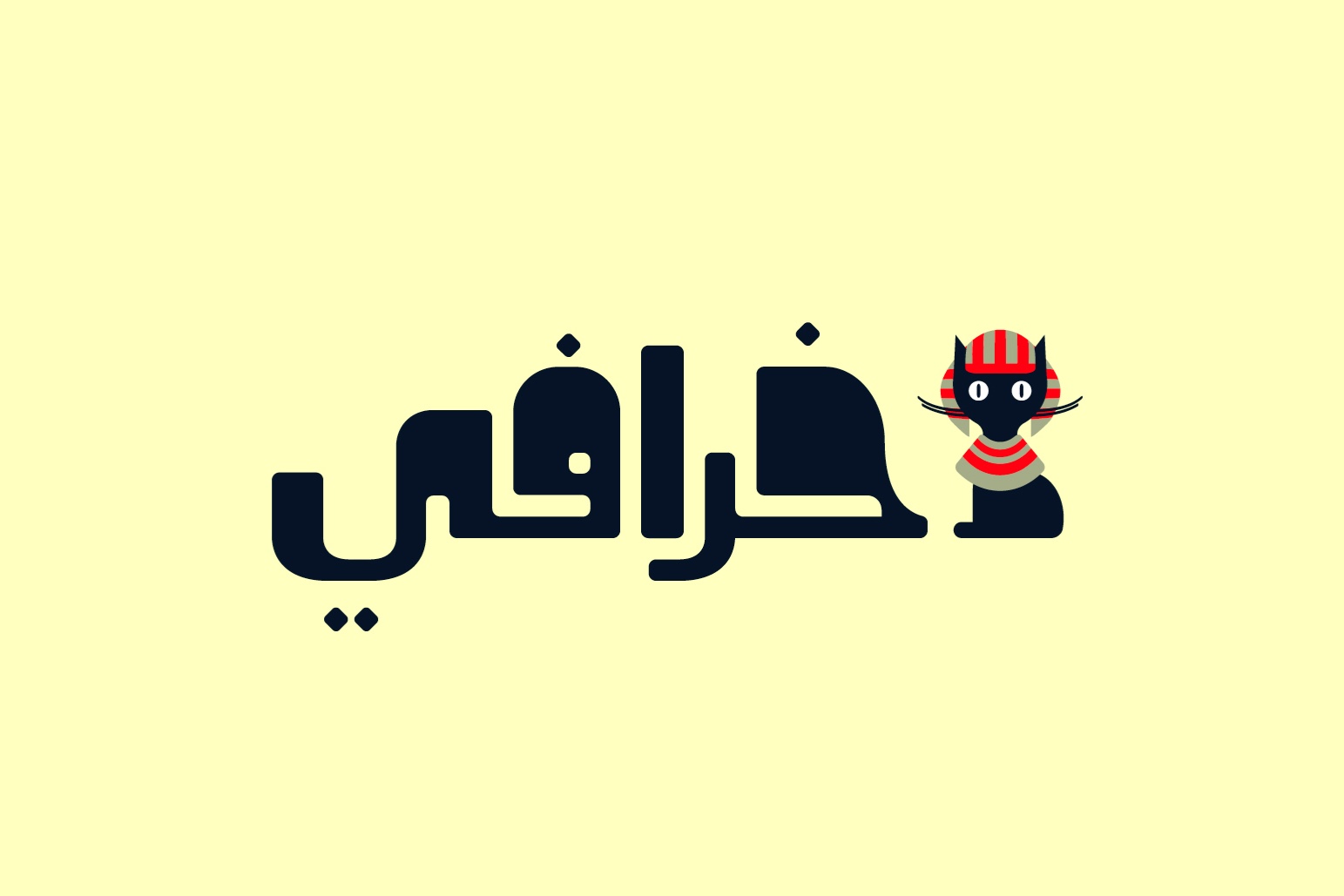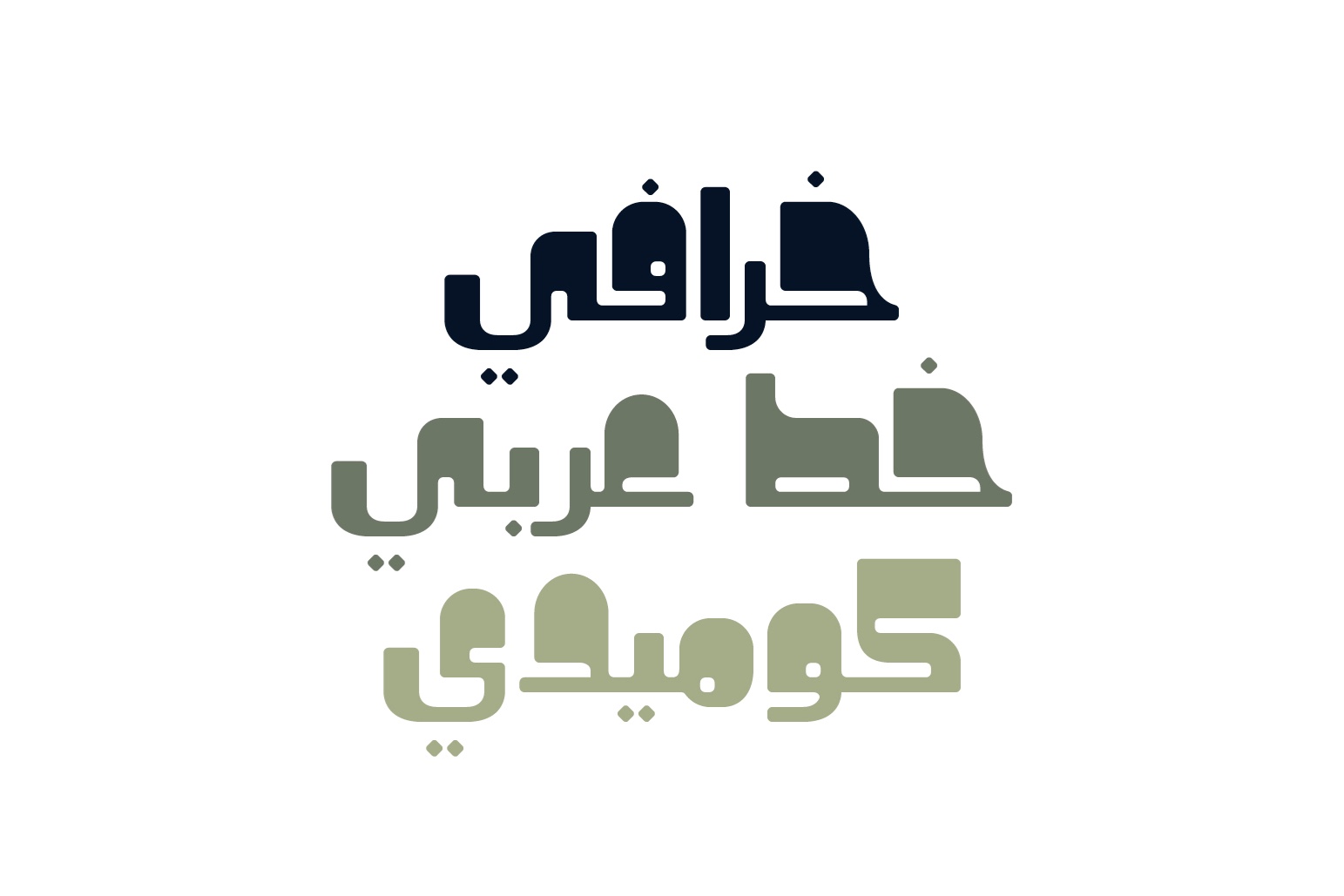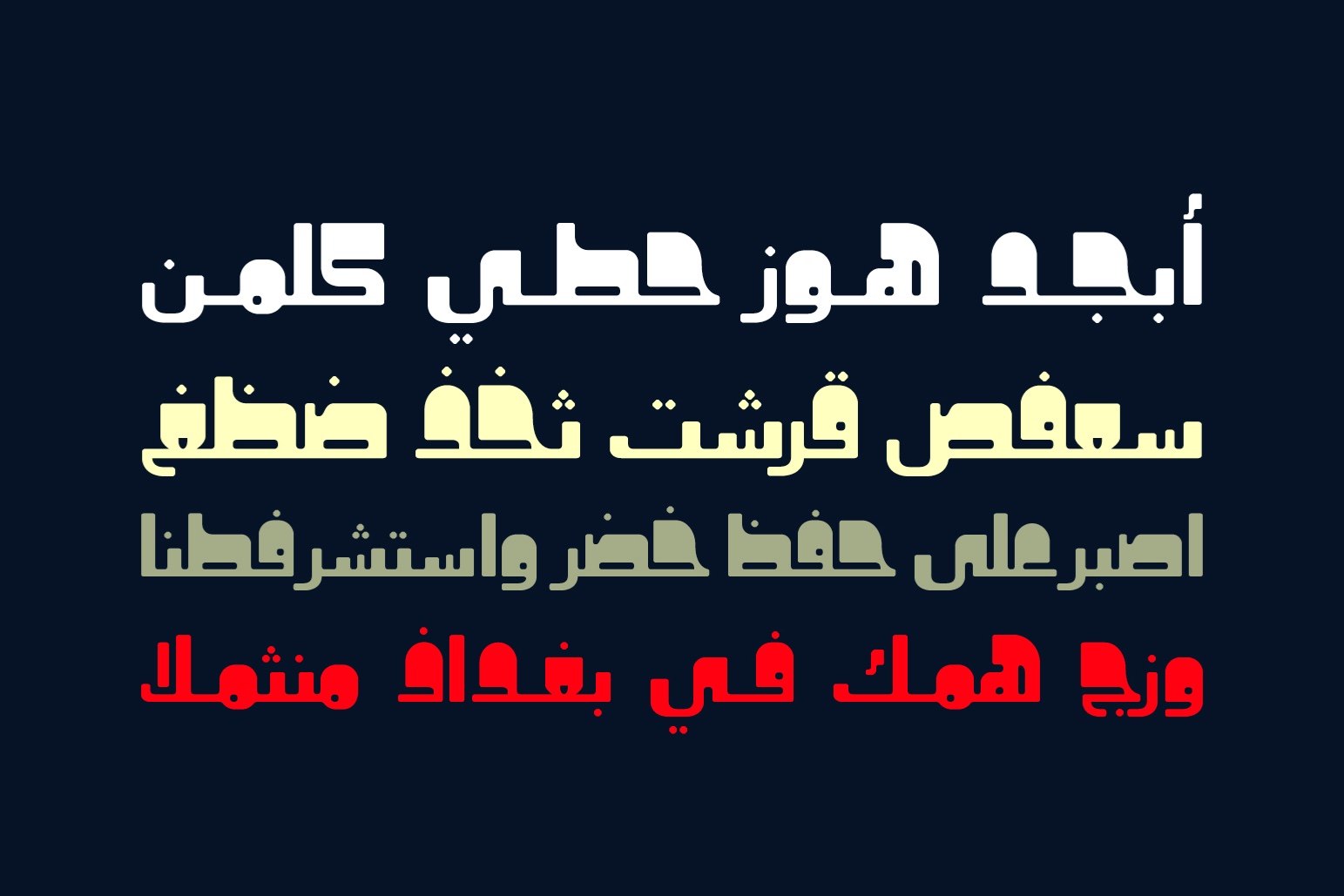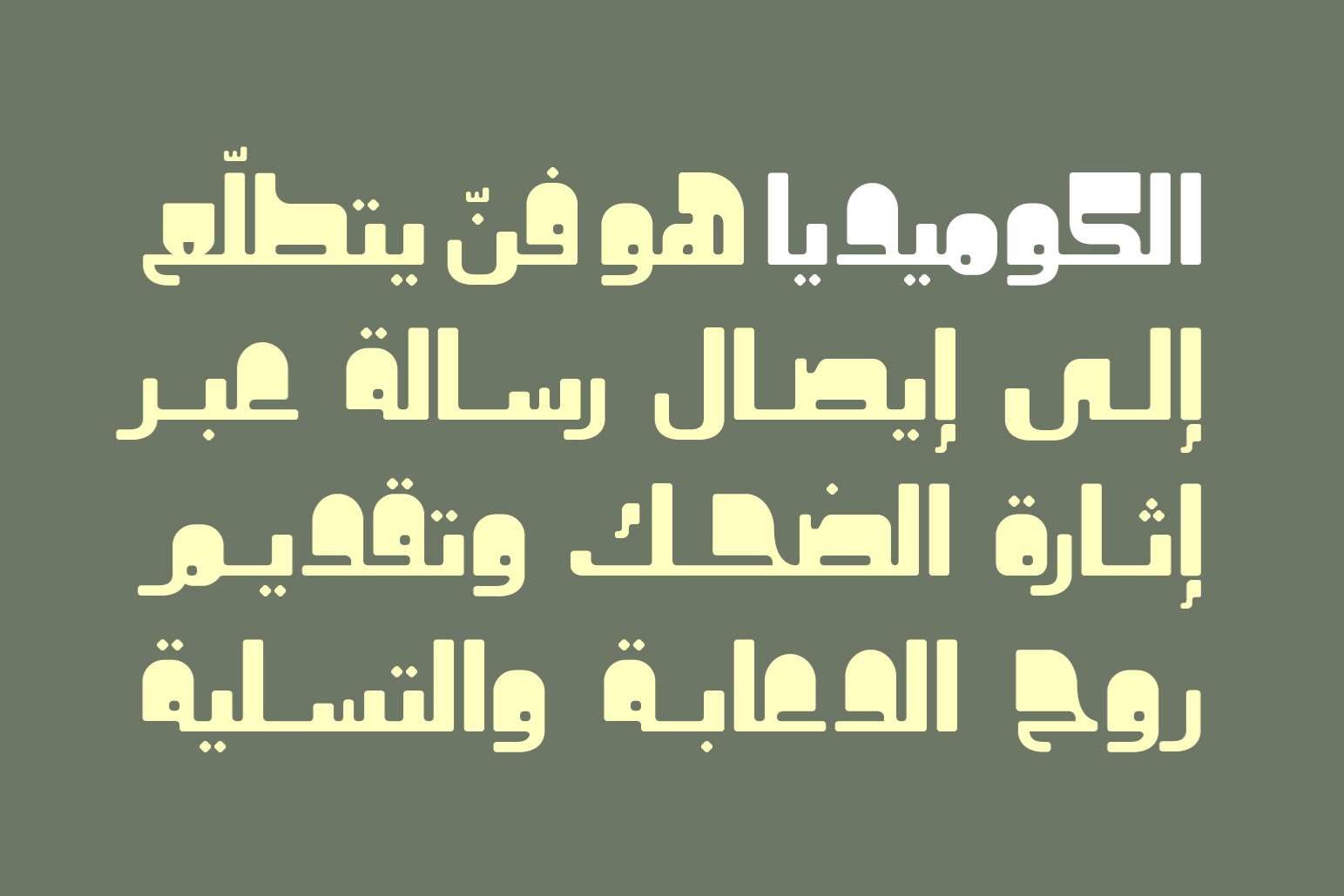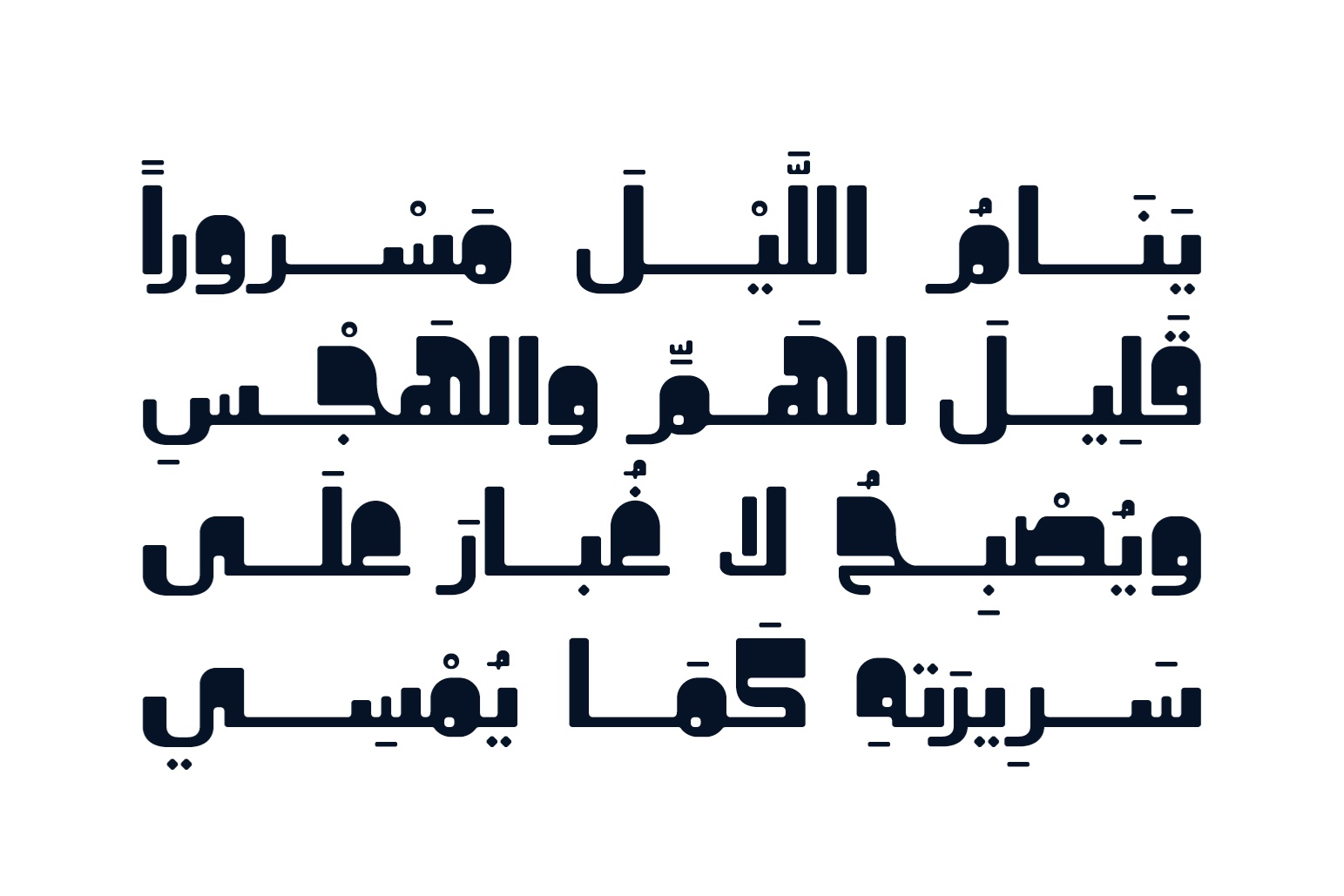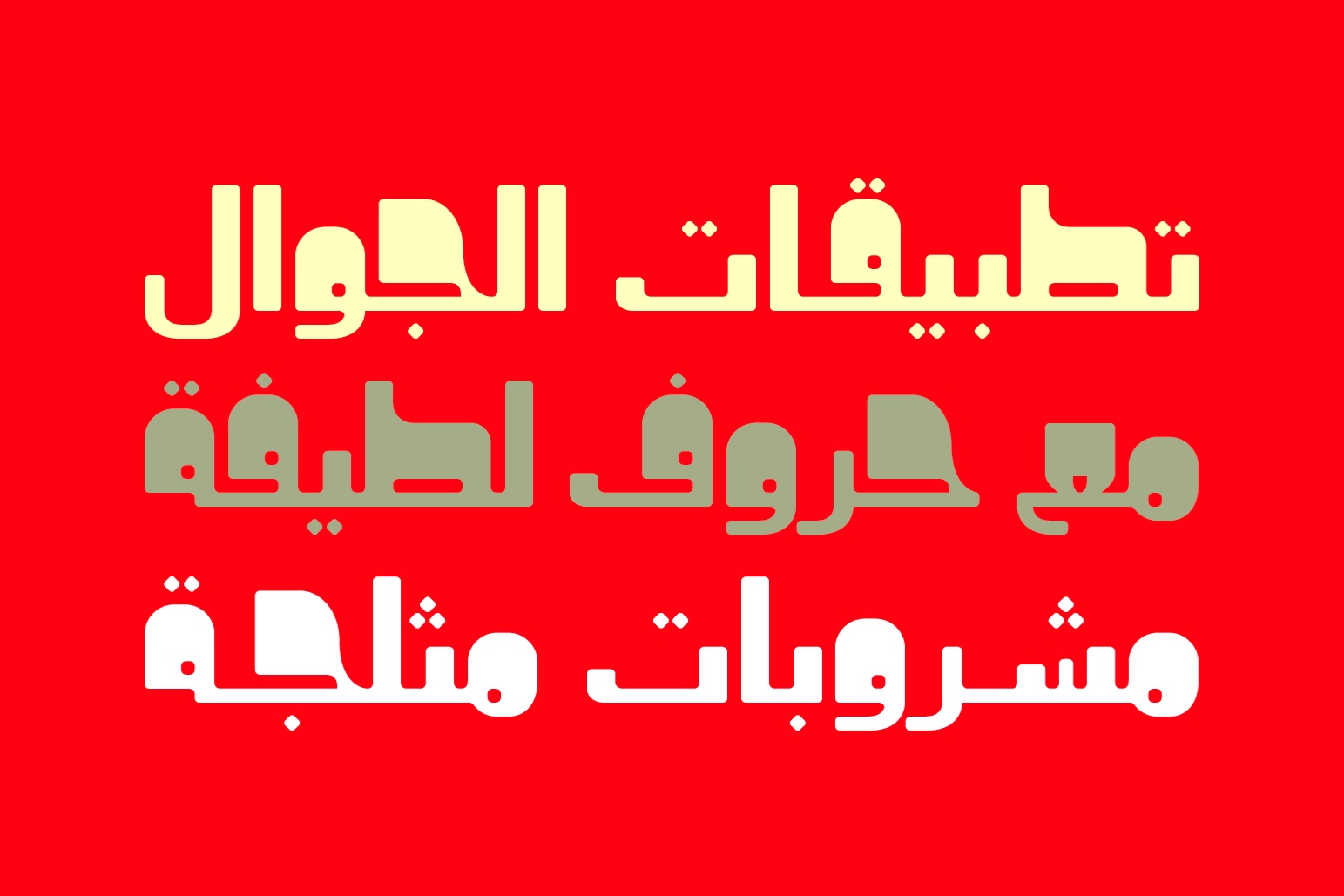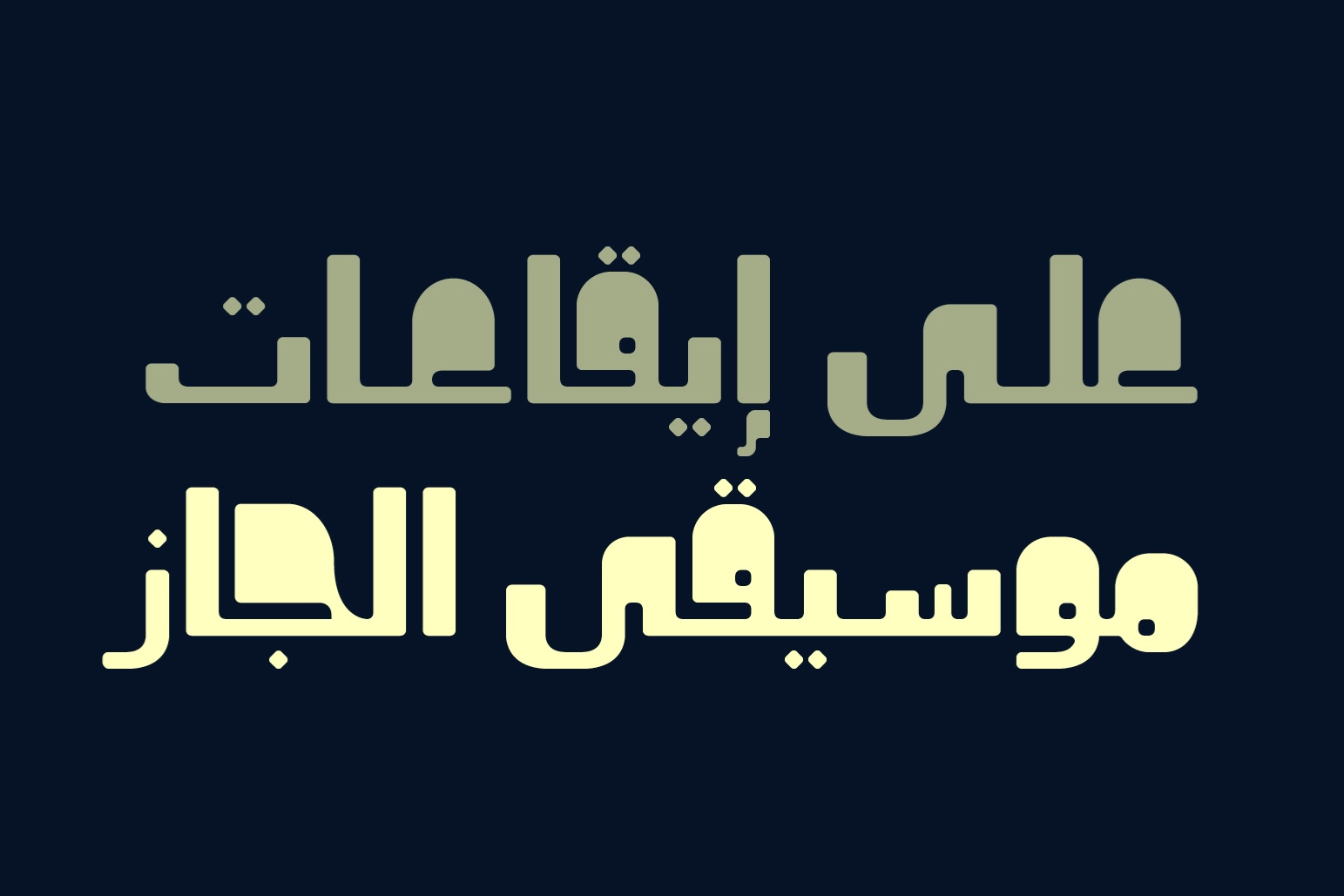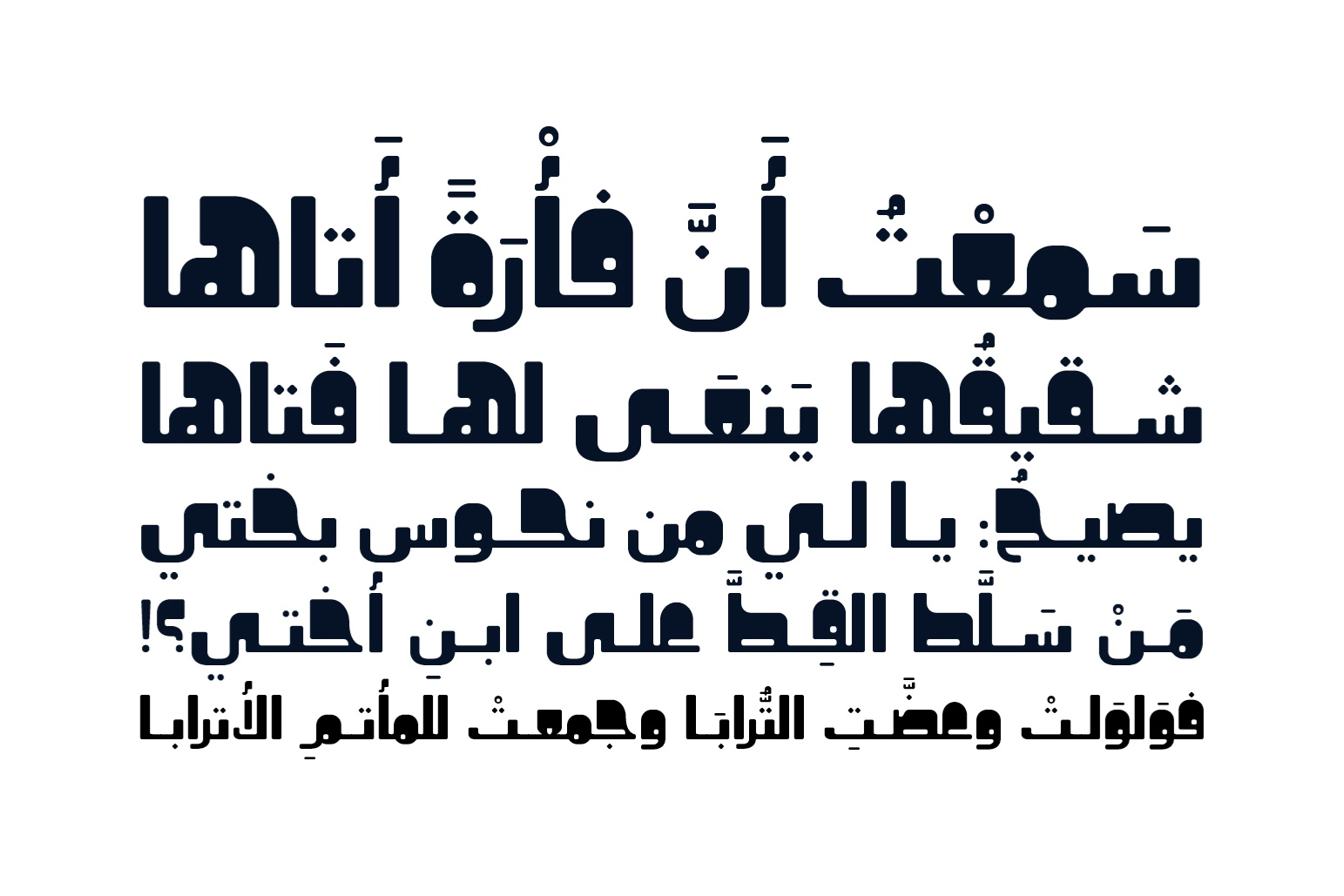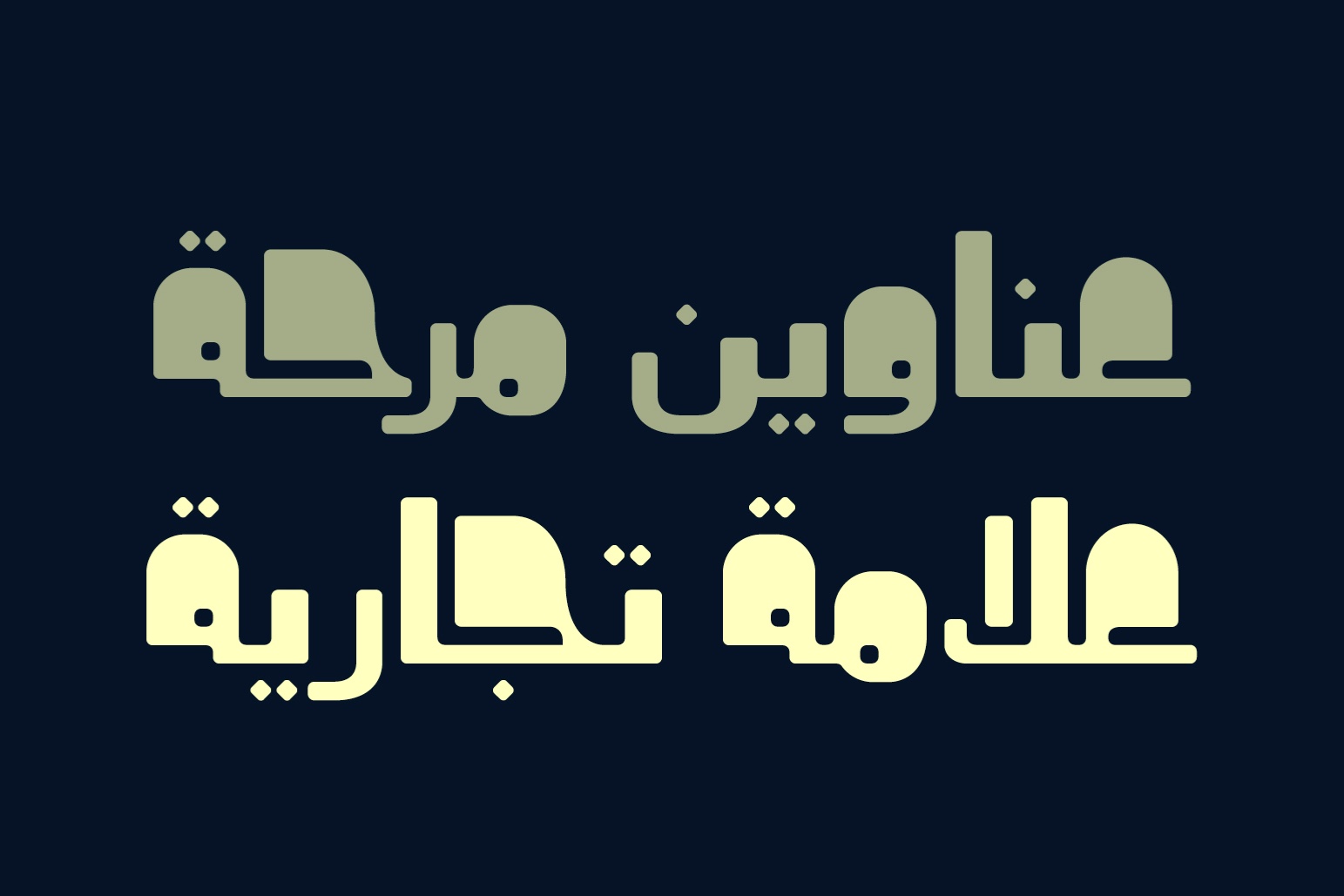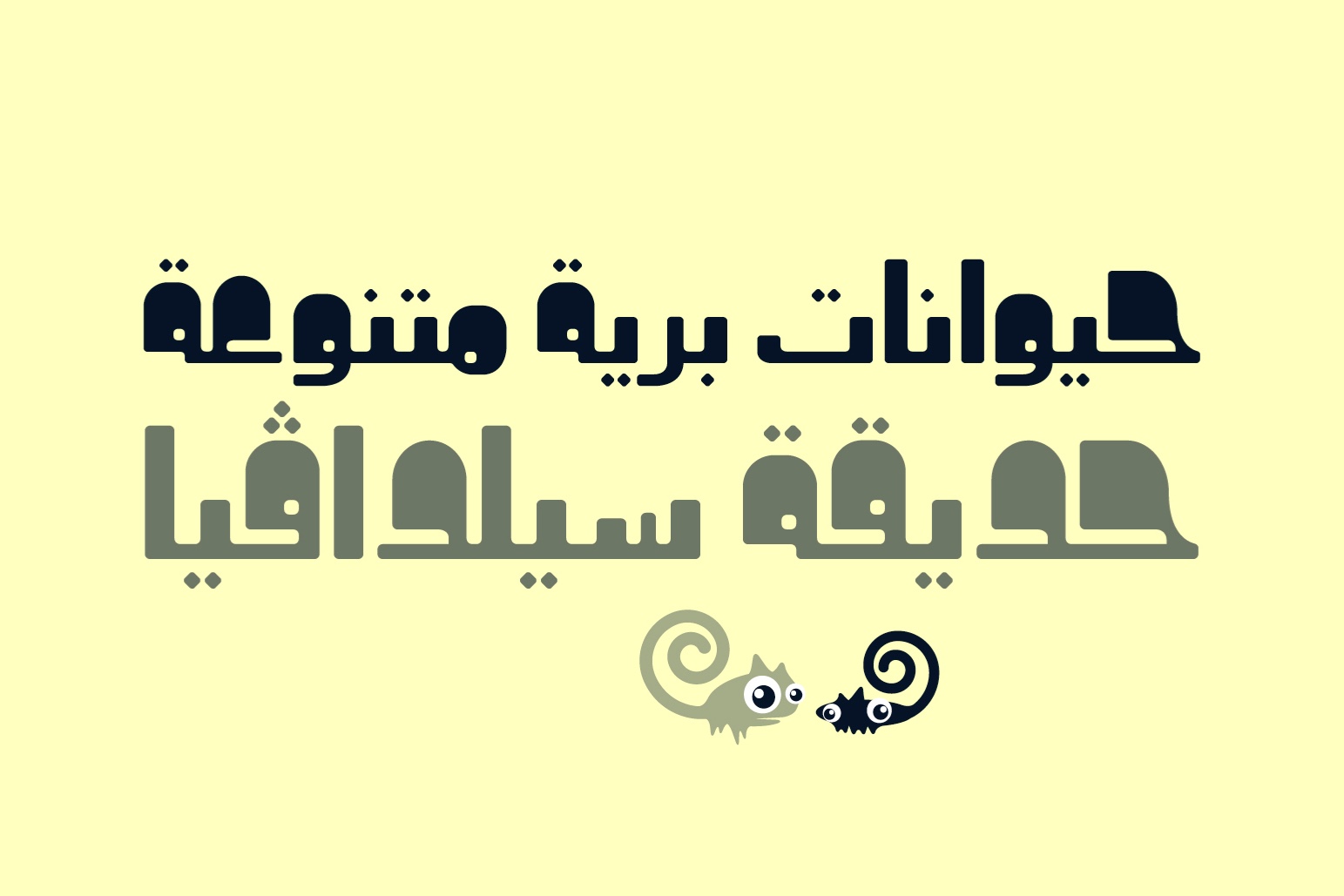
Khorafi (the Arabic word for “Mythical”) is an Arabic display font characterized by playful, contrastive letterforms. It is suitable for a wide range of applications, including print, web design, and mobile interfaces.